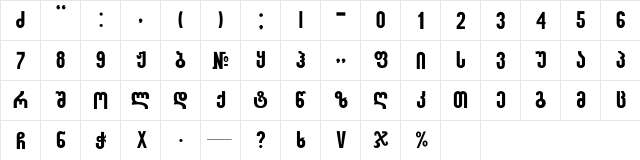
Sakatrvelo-ITV Regular
Design Context for Sakatrvelo-ITV Typeface
Sakatrvelo-ITV offers clean, dependable letterforms without strong stylistic allegiance, making it a practical choice for designers who need flexibility.